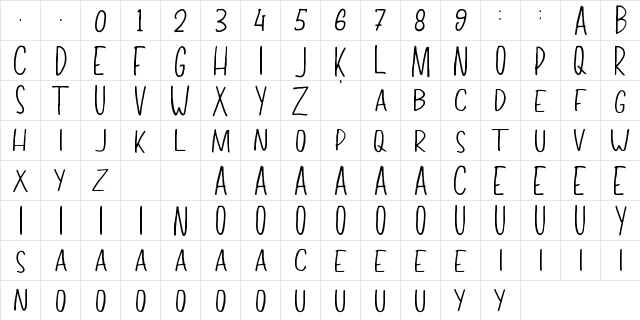
Tiffany Sans Regular
| Foundry | Ardyanatypes Studio |
| Designer | Ardyanatypes |
Design Context for Tiffany Sans Typeface
Tiffany Sans is a composed and adaptable typeface that performs quietly and consistently across a wide range of design contexts.